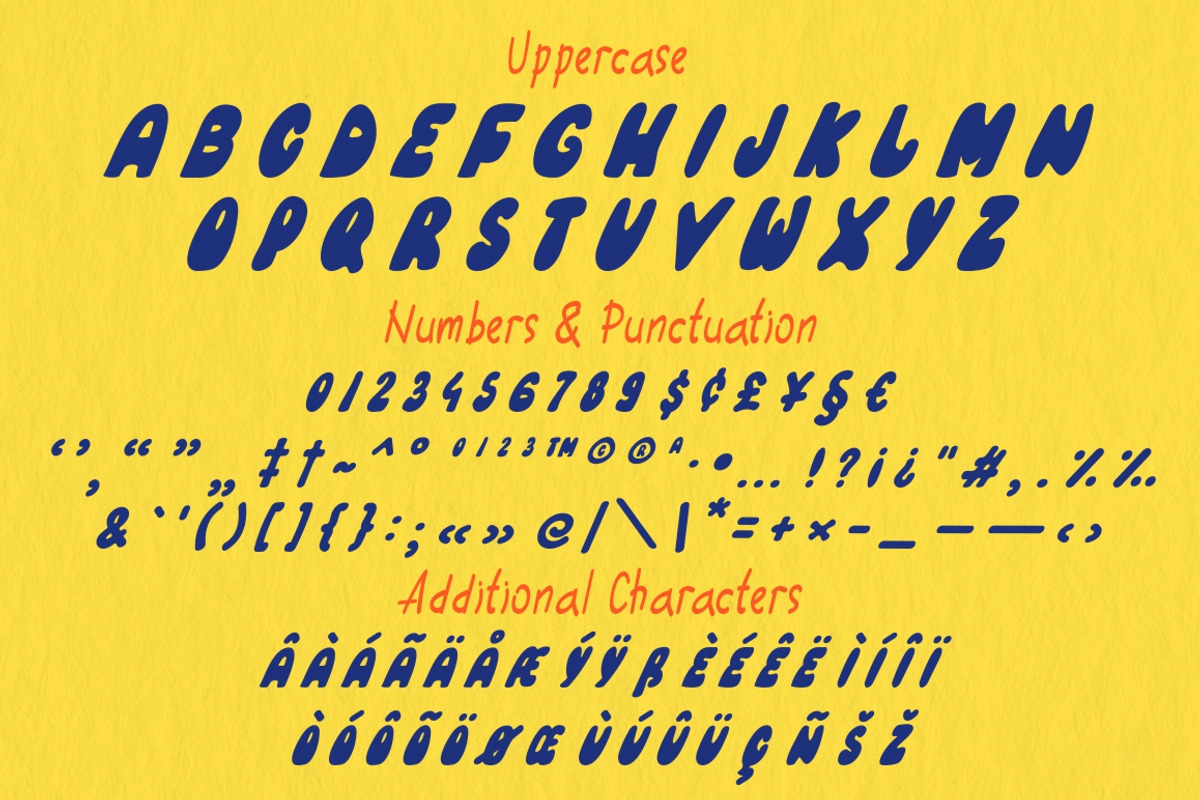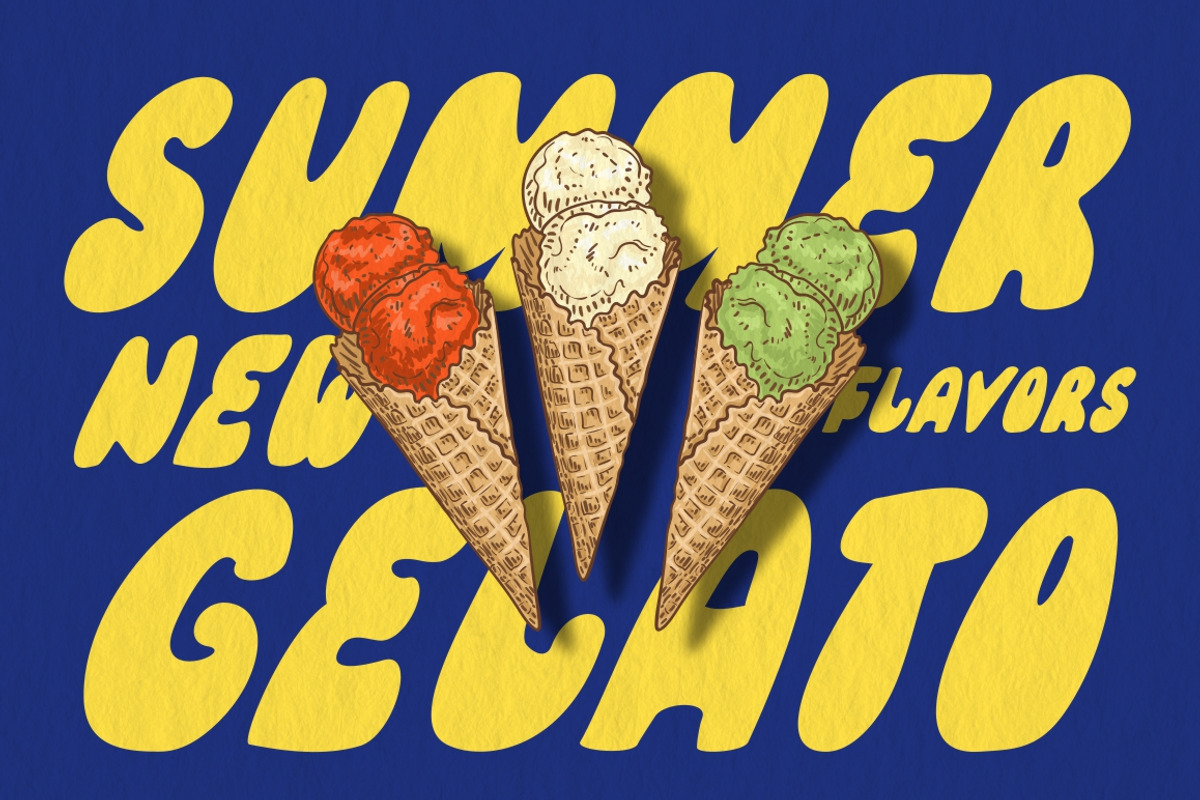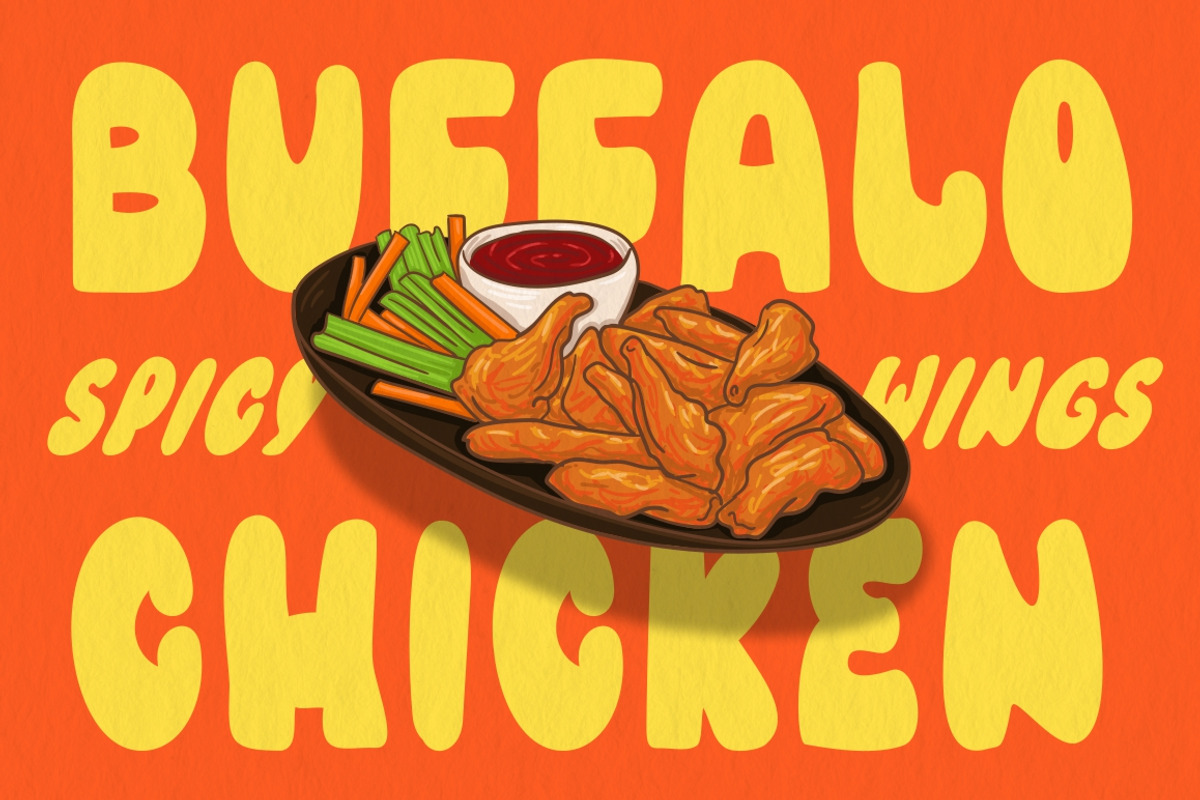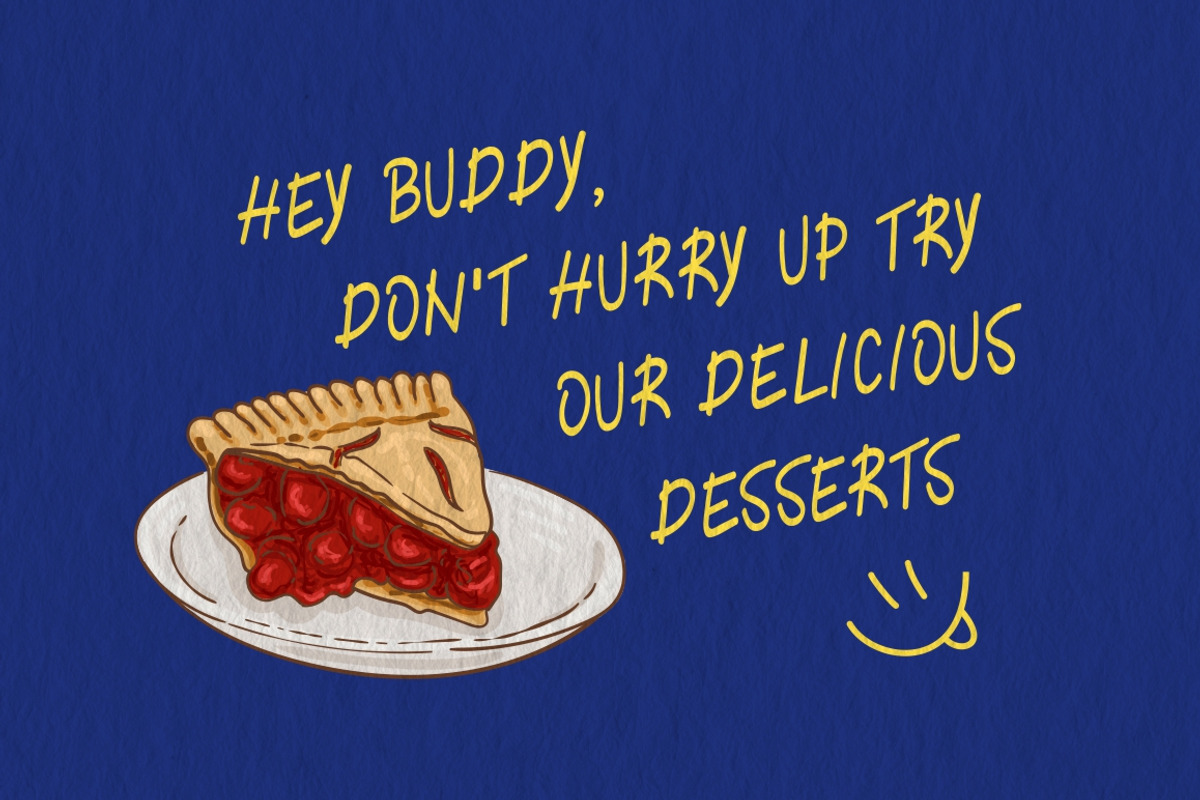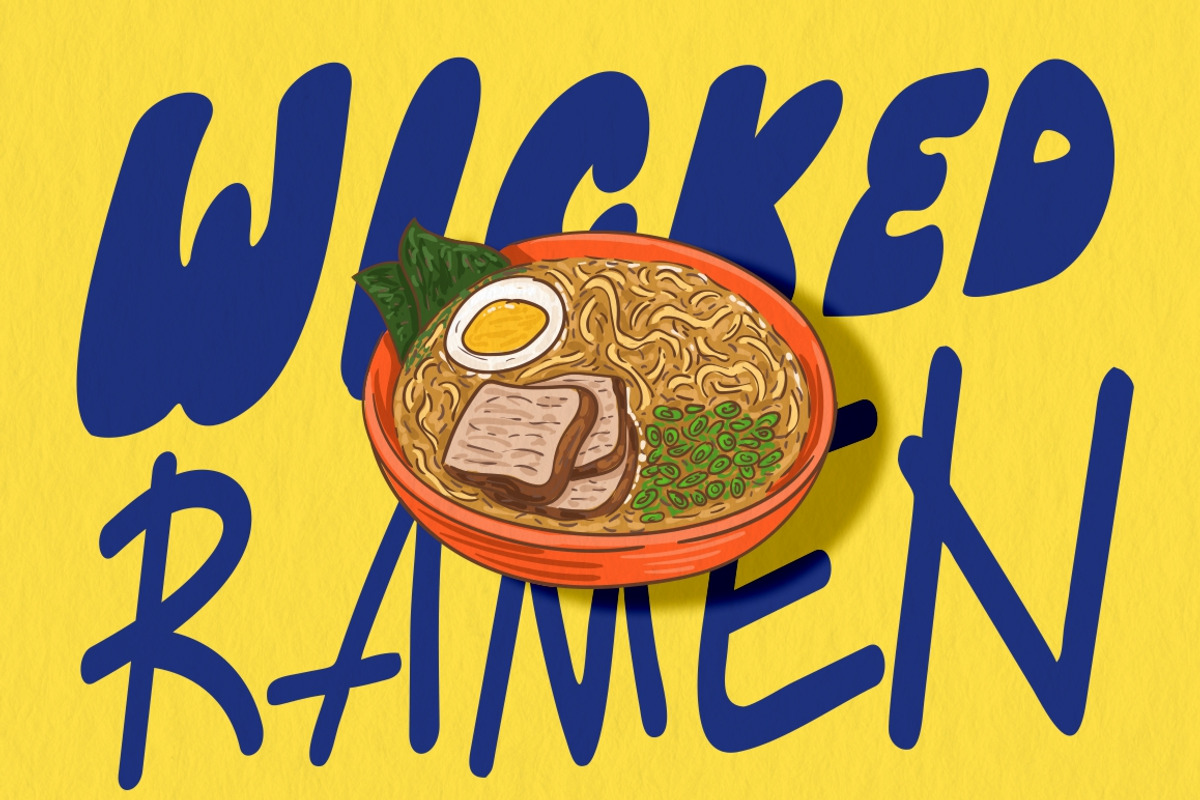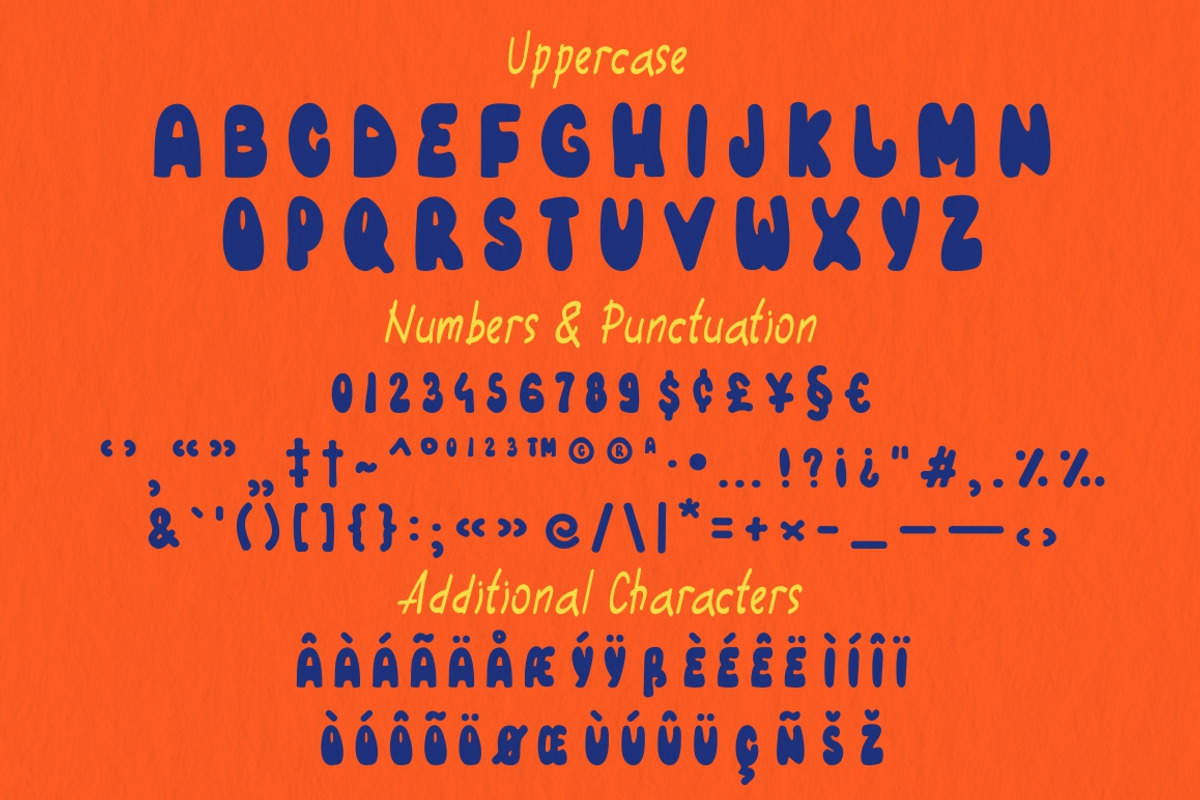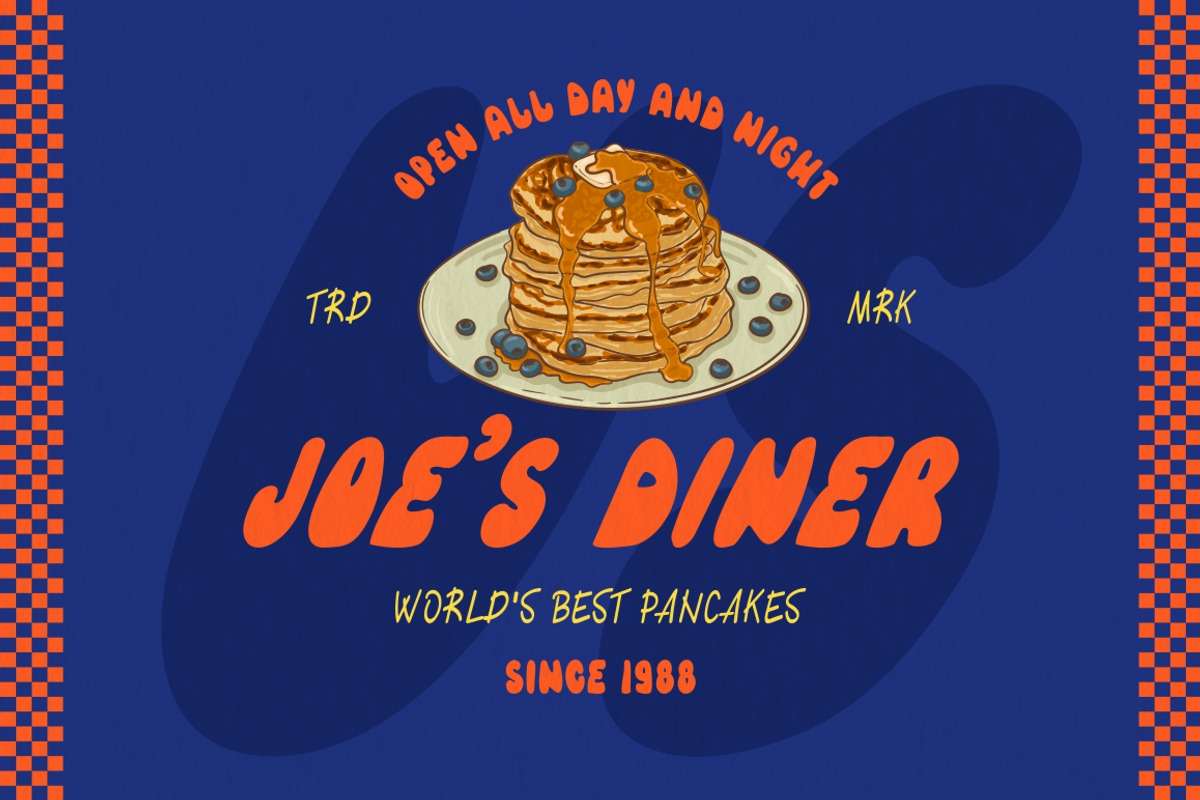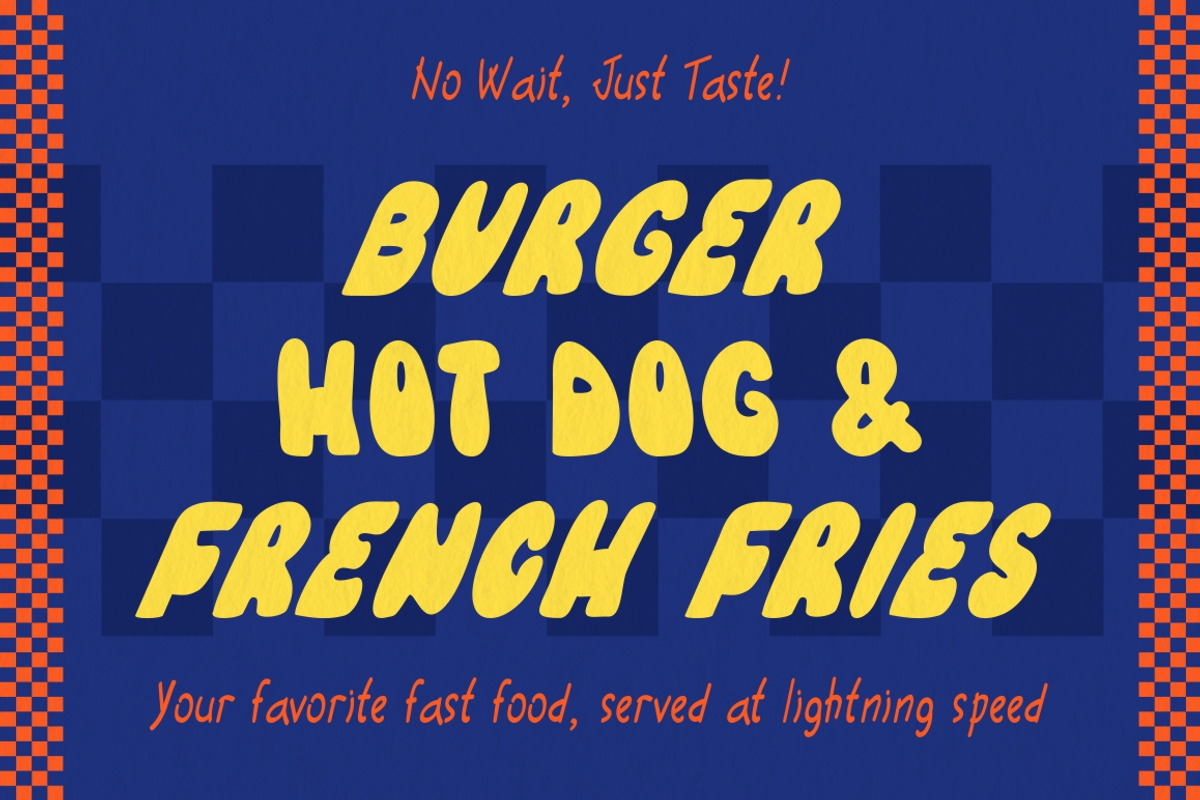
Quick Takeaway fast food fonts
Quick Takeaway fonts + illustrations
This vibrant font pack is designed to capture the energetic, fun, and eye-catching vibe of the fast food industry. Perfect for menus, signage, branding, and promotional materials, these fonts combine bold, playful aesthetics with a modern twist.
Quick Takeaway — A thick, rounded, and bubbly typeface that exudes friendliness and approachability. Its soft curves make it perfect for headlines and logos that need to grab attention instantly.
Quick Takeaway Italic — A sleek, modern sans-serif font with a slight condensed italic style, ideal for "fast" and eye-catching text.
Quick Takeaway Handwritten — A casual handwritten style font that adds a personal, homemade feel. Perfect for highlighting special offers, slogans, or adding a touch of personality to your designs.